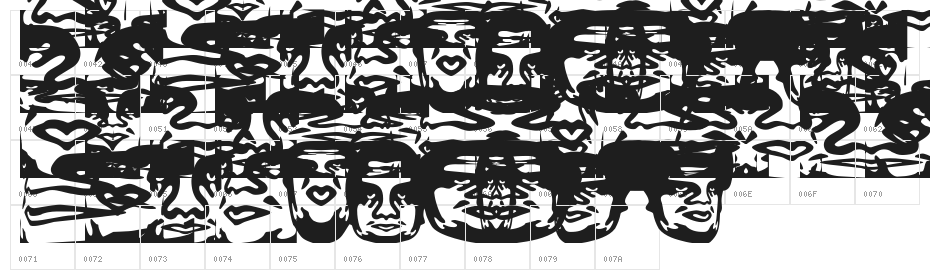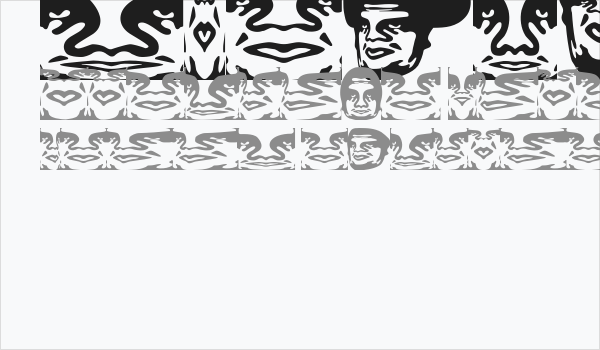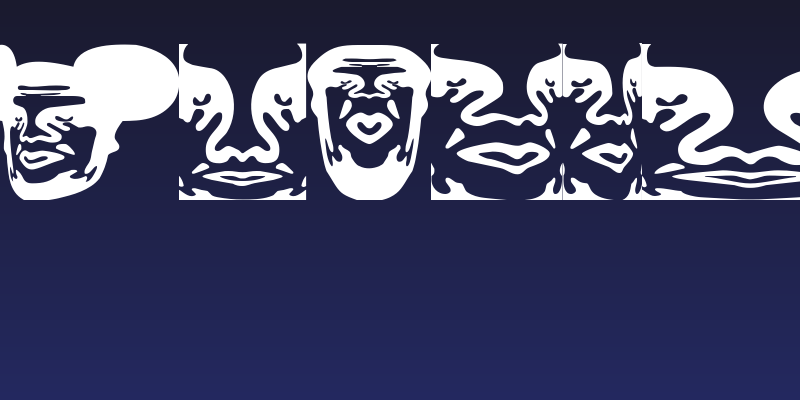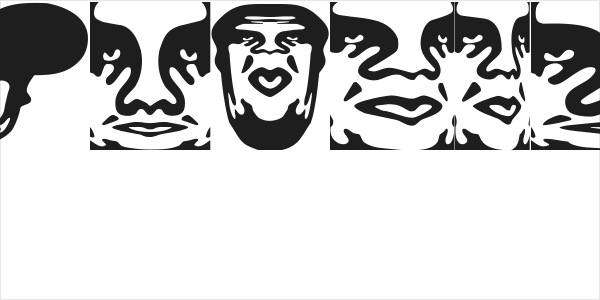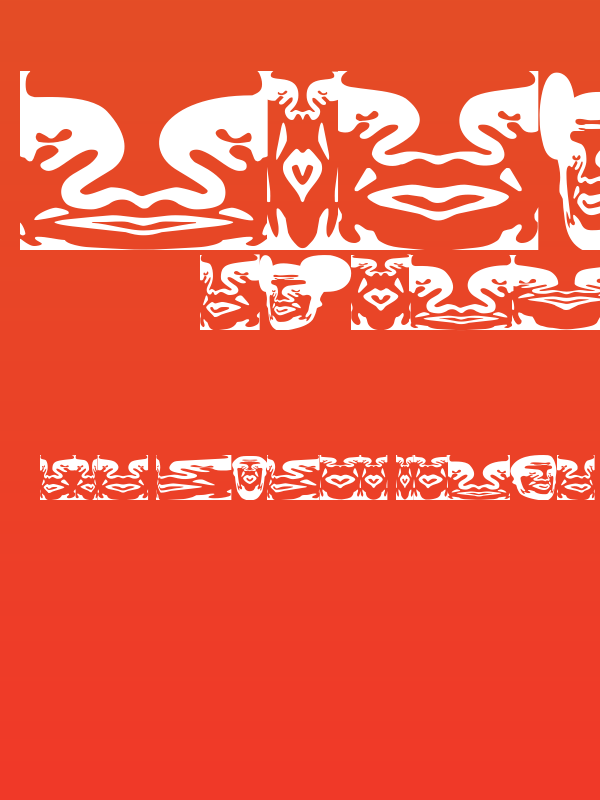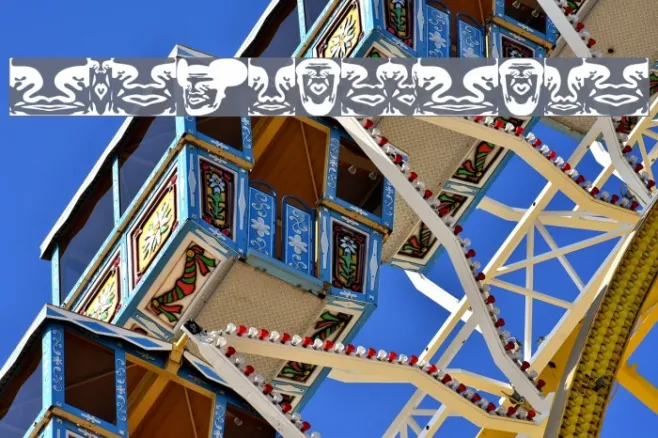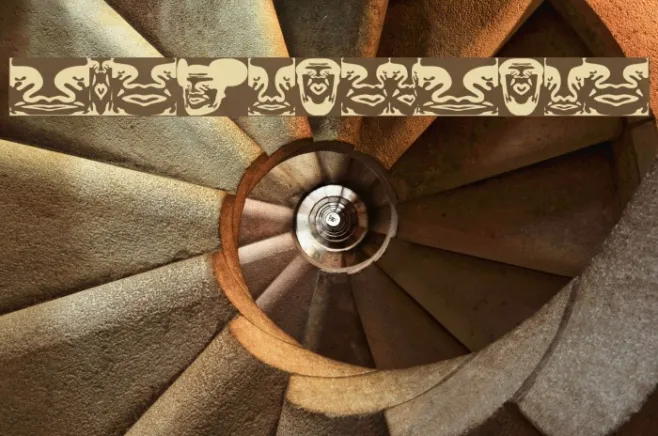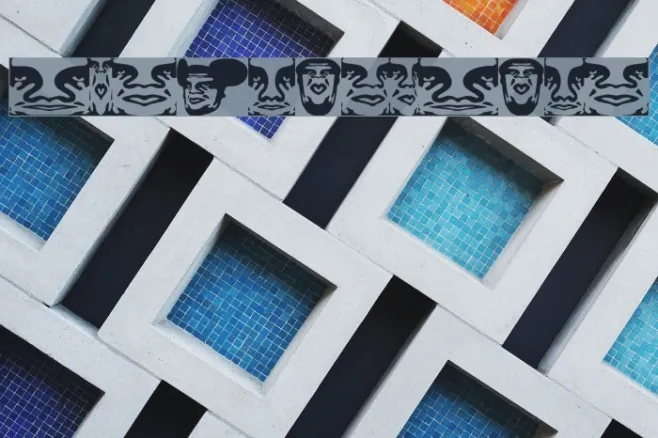
ObeyFunhouse Font
ObeyFunhouse Description
This font is a highly decorative and artistic typeface, featuring intricate and abstract designs within each character. The letters are filled with bold, black shapes that create a sense of movement and energy. Each character seems to be a unique piece of art, with swirling patterns and faces embedded within the letters, giving it a surreal and avant-garde appearance. The font is visually striking and demands attention, making it suitable for creative and unconventional projects. Its complex design may not be suitable for body text but excels in making a statement in headlines or artistic displays.
| Overall Style | Avant-garde, Artistic |
| Use Case | Headlines, Artistic displays |
| Proposed Projects | Ideal for art projects, posters, album covers, and any creative work that requires a bold statement. |